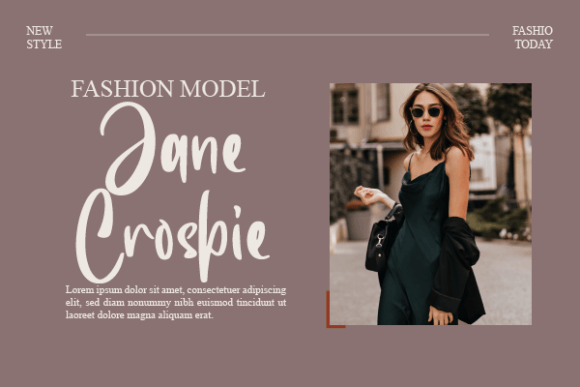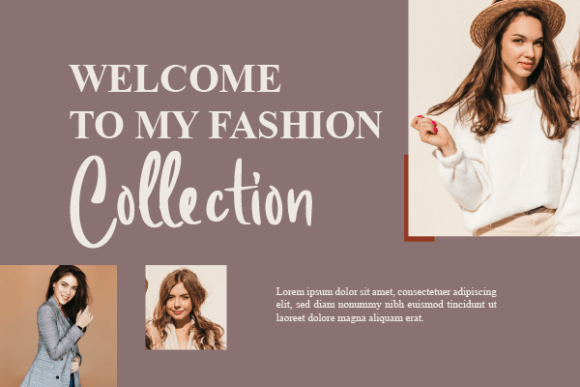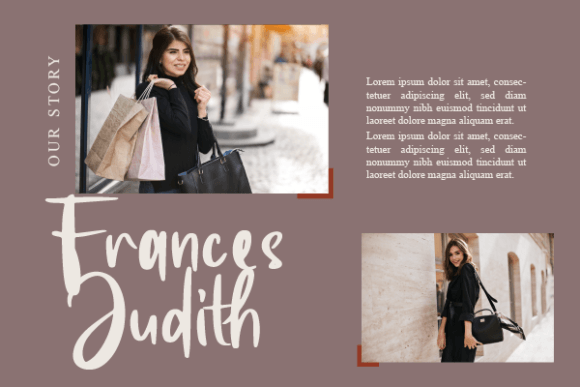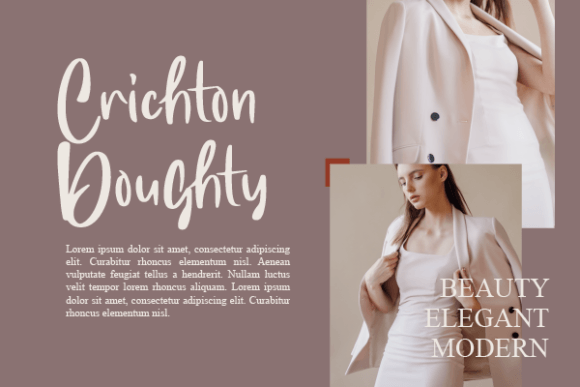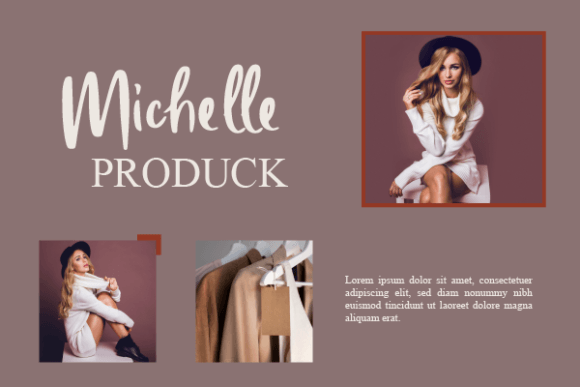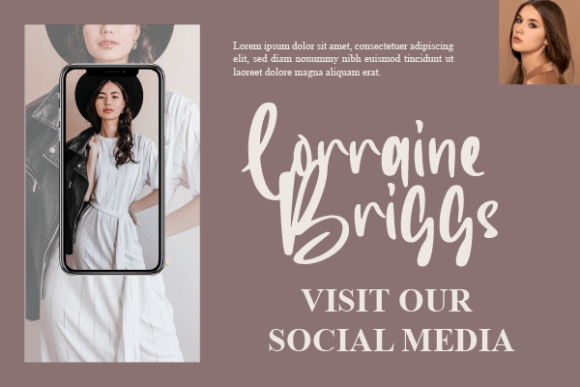
Daniele Blackmore Font: A Timeless Handwritten Font for Stunning Designs
Are you a designer or crafter looking for a font that can elevate your designs and make them stand out? Look no further than the Daniele Blackmore Font. This lovely and timeless handwritten font is perfect for creating eye-catching logos, branding, and quotes that will leave a lasting impression.
What Makes Daniele Blackmore Font So Special?
The Daniele Blackmore Font is a unique and beautiful font that has a special touch to every letter. Each letter is carefully crafted to give your design a personal and handmade feel that will set it apart from the rest. The font’s elegant and flowing lines make it perfect for creating stunning designs that are both modern and timeless.
The Daniele Blackmore Font is an excellent choice for creating logos, branding, and quotes. Its elegant and cursive style makes it perfect for businesses and individuals looking to create a professional and sophisticated brand image. The font’s unique and beautiful touch will make your logo or branding stand out and be remembered.
Why Designers and Crafters Love Daniele Blackmore Font
Designers and crafters love the Daniele Blackmore Font for its versatility and ease of use. The font is perfect for a wide range of design projects, from logos and branding to quotes and social media graphics. The font’s high-quality design and unique style make it a valuable addition to any designer’s or crafter’s toolkit.
Key Features of Daniele Blackmore Font
- Timeless and elegant design: The Daniele Blackmore Font has a timeless and elegant design that will never go out of style.
- Unique and beautiful touch: Every letter has a unique and beautiful touch that will make your design stand out.
- Perfect for logos and branding: The font is perfect for creating logos, branding, and quotes that will leave a lasting impression.
- Ease of use: The font is easy to use and can be used for a wide range of design projects.
- High-quality design: The font has a high-quality design that will make your design look professional and sophisticated.
Tips for Getting the Most Out of Daniele Blackmore Font
- Experiment with different colors and textures: The Daniele Blackmore Font looks great in a variety of colors and textures. Experiment with different combinations to find the one that works best for your design.
- Use it for headlines and titles: The font is perfect for headlines and titles. Use it to create eye-catching headings that will grab the reader’s attention.
- Pair it with other fonts: The Daniele Blackmore Font pairs well with other fonts. Experiment with different font combinations to find the one that works best for your design.
The Daniele Blackmore Font is a timeless and elegant handwritten font that is perfect for creating stunning designs. Its unique and beautiful touch makes it perfect for logos, branding, and quotes. Designers and crafters love the font for its versatility and ease of use. With its high-quality design and elegant style, the Daniele Blackmore Font is a valuable addition to any designer’s or crafter’s toolkit.